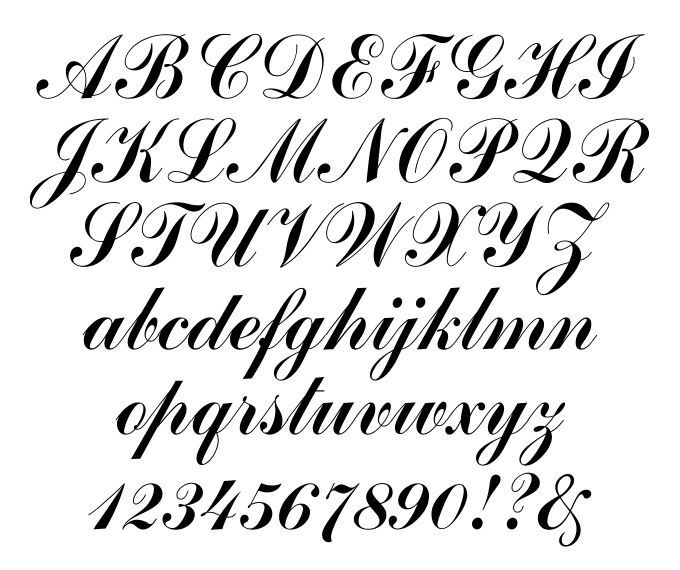
Commercial Script Font Example
Commercial script was designed by morris benton and published by bitstream. Peterbuilt font (free) the peterbuilt font is a great bold script font that can be used in personal and commercial projects. 1001 free fonts offers the best selection of script fonts for windows and macintosh.
Commercial Script Contains 1 Style.